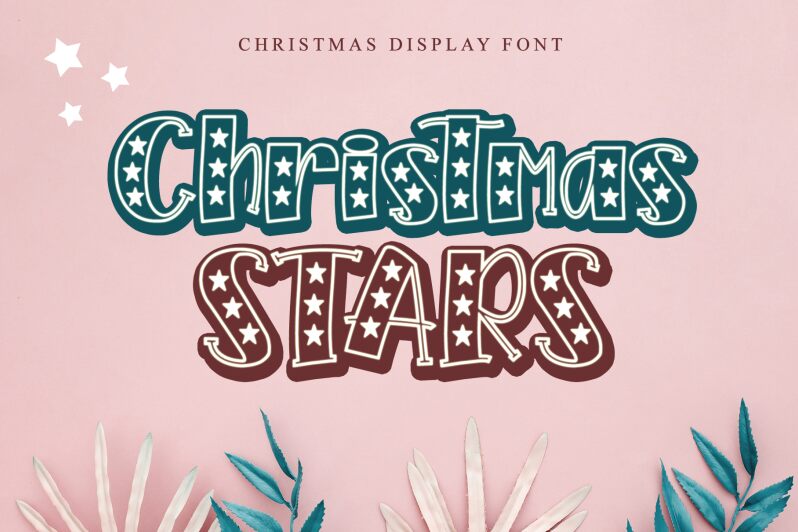
Christmas STARS, designed by Letterafa Studio, is a display font that captures the enchanting spirit of the holiday season with its decorative and extra-bold style. This font twinkles with creativity, featuring star-studded characters that bring a festive flair to any design. The robust weight of Christmas STARS adds a captivating presence to titles and headlines, making it an ideal choice for seasonal advertising, event posters, and greeting cards.
The aesthetic appeal of Christmas STARS lies in its whimsical playfulness. Each letter is crafted like a winter constellation, inviting viewers into a magical world where typography meets the night sky's sparkle. Its suitability for creative projects is vast-from packaging designs that need an extra touch of cheer to social media graphics aimed at spreading holiday joy.
With its visually compelling design, Christmas STARS stands out as more than just a typeface; it's an experience that embodies the warmth and excitement of Christmas in every character. Whether you're crafting merry invitations or decking out brand campaigns, this font ensures your message shines bright with seasonal splendor.